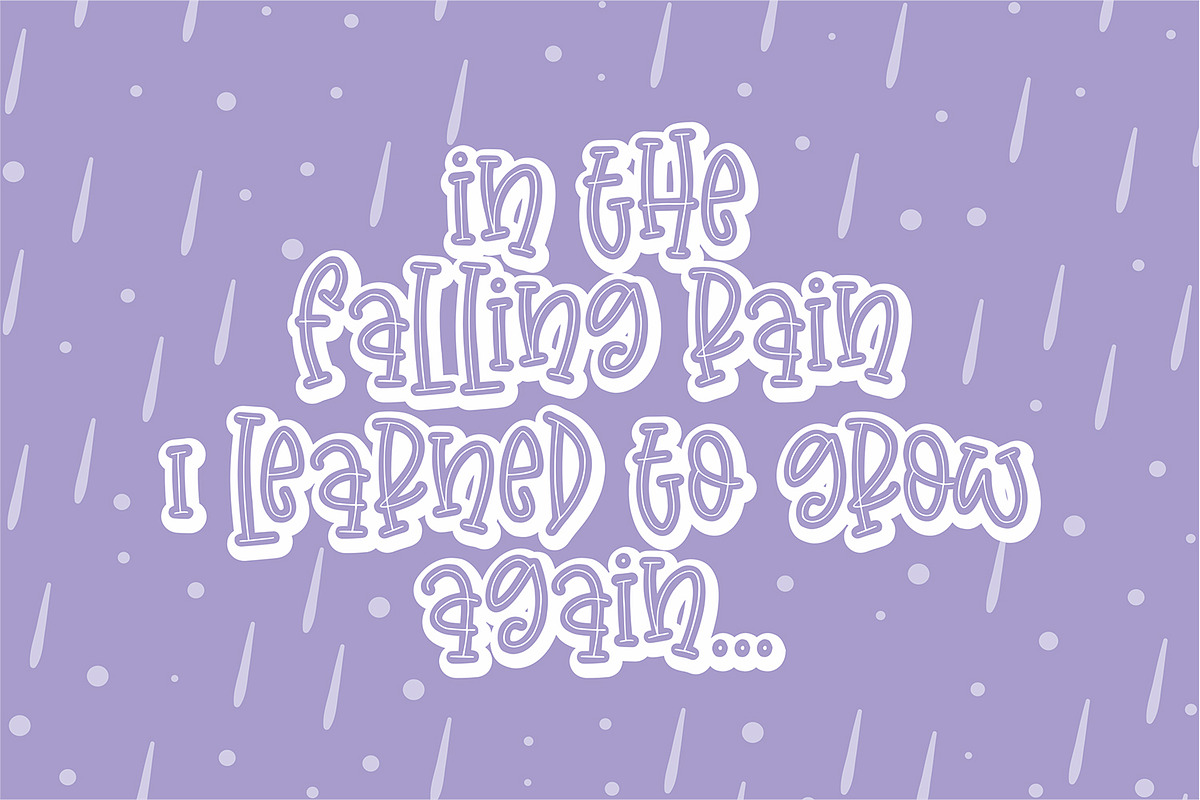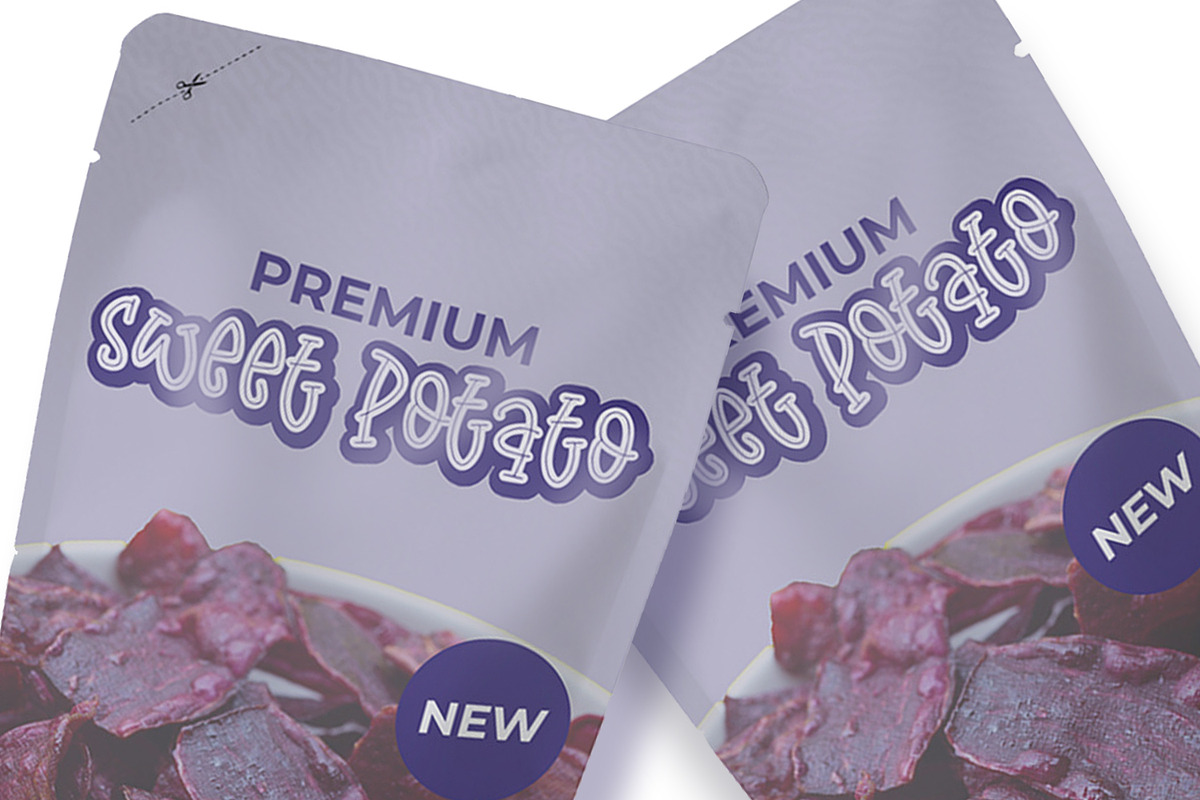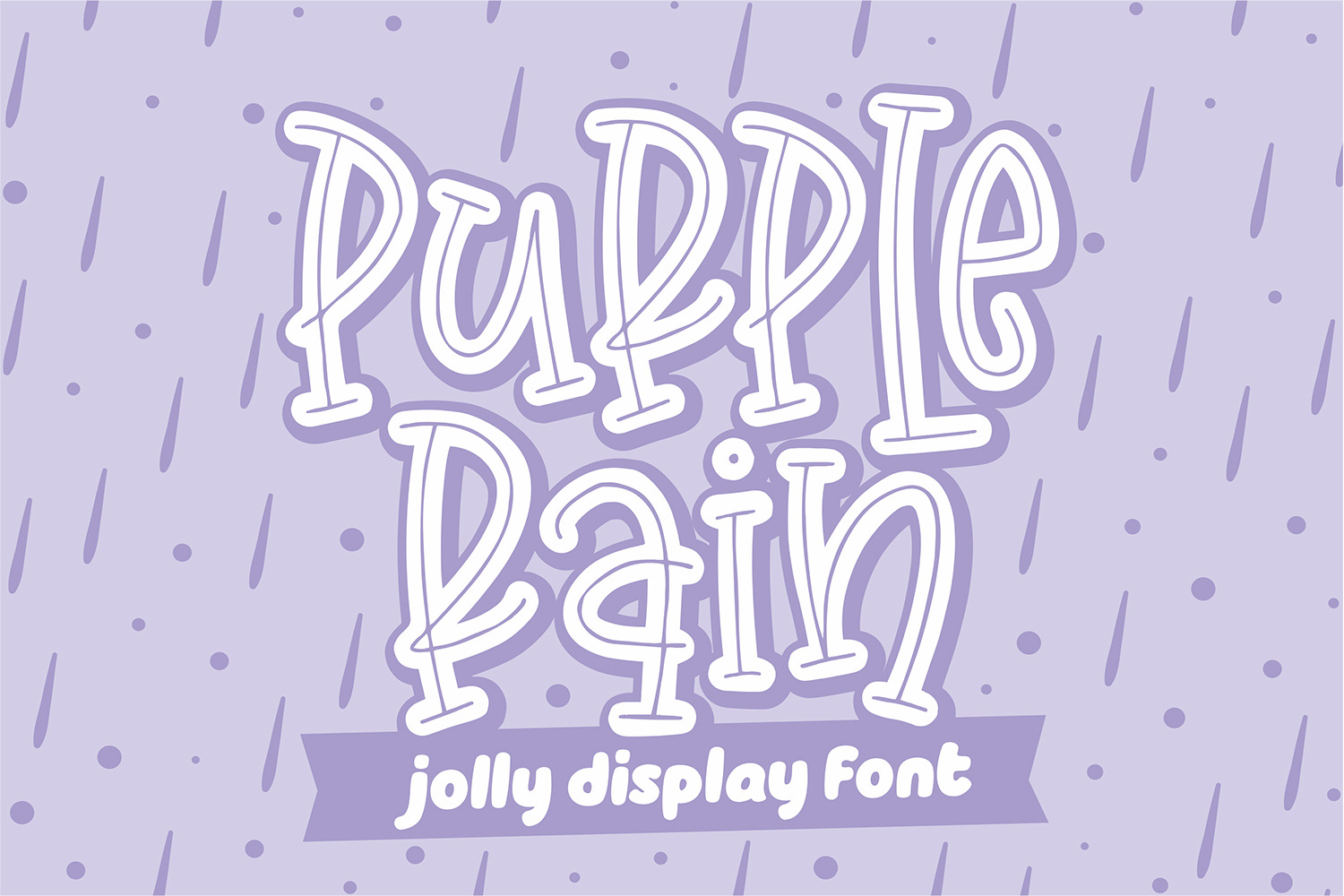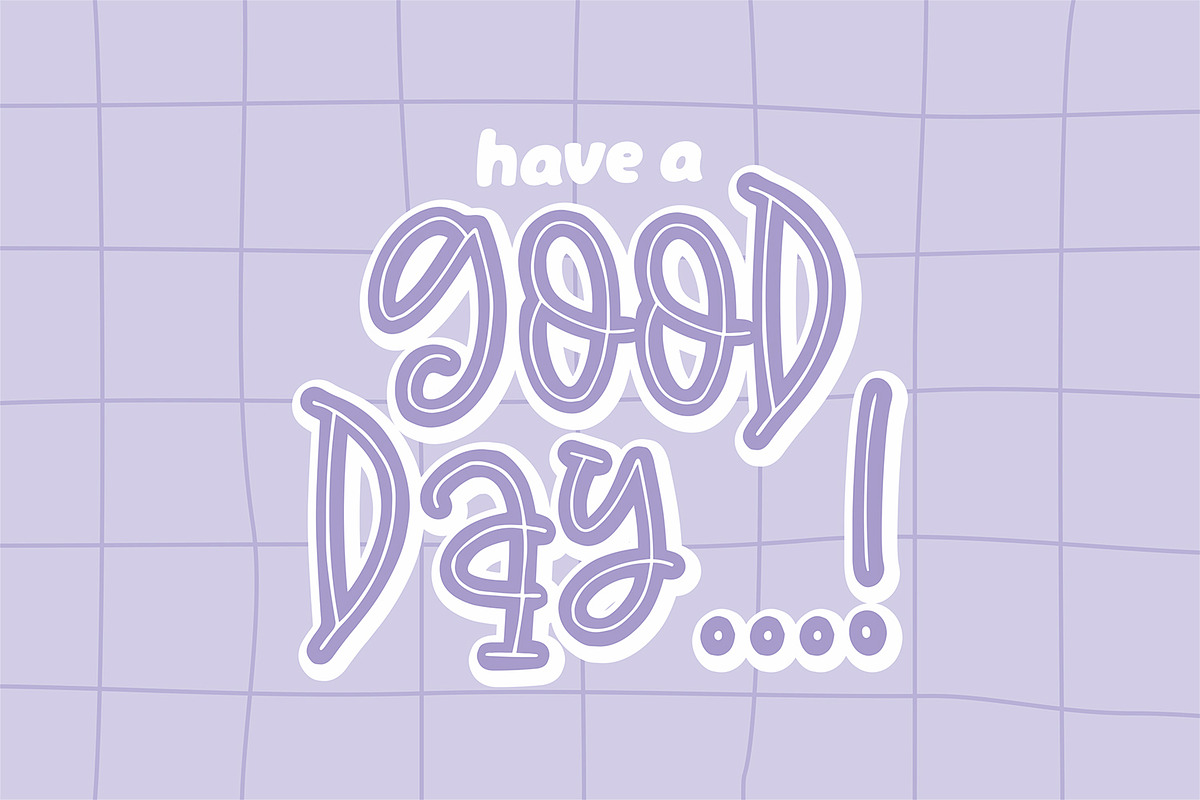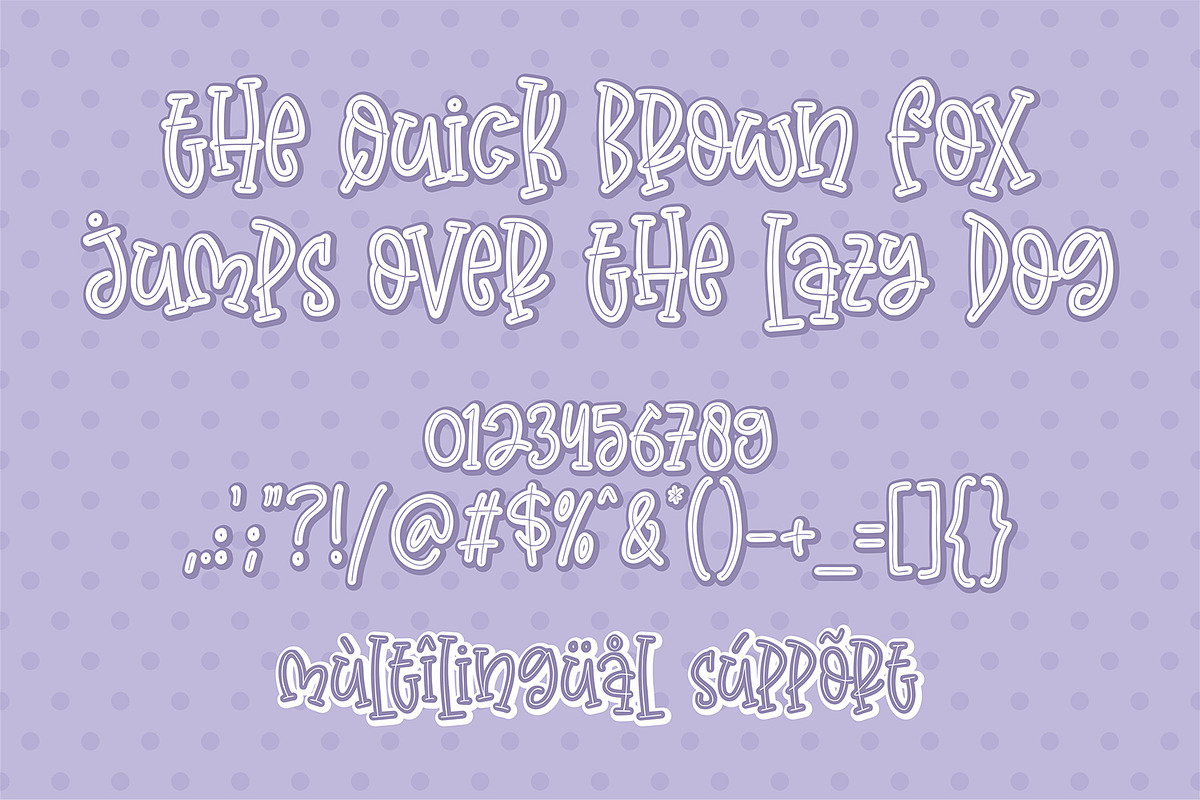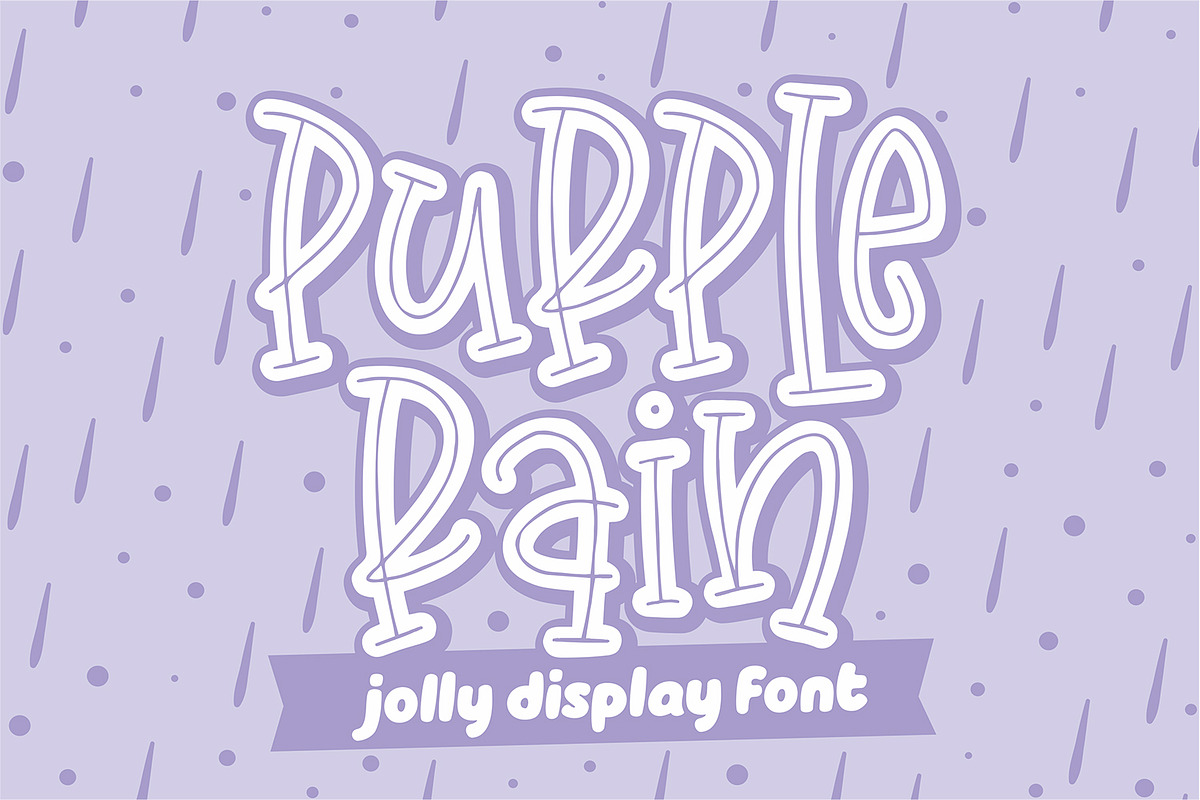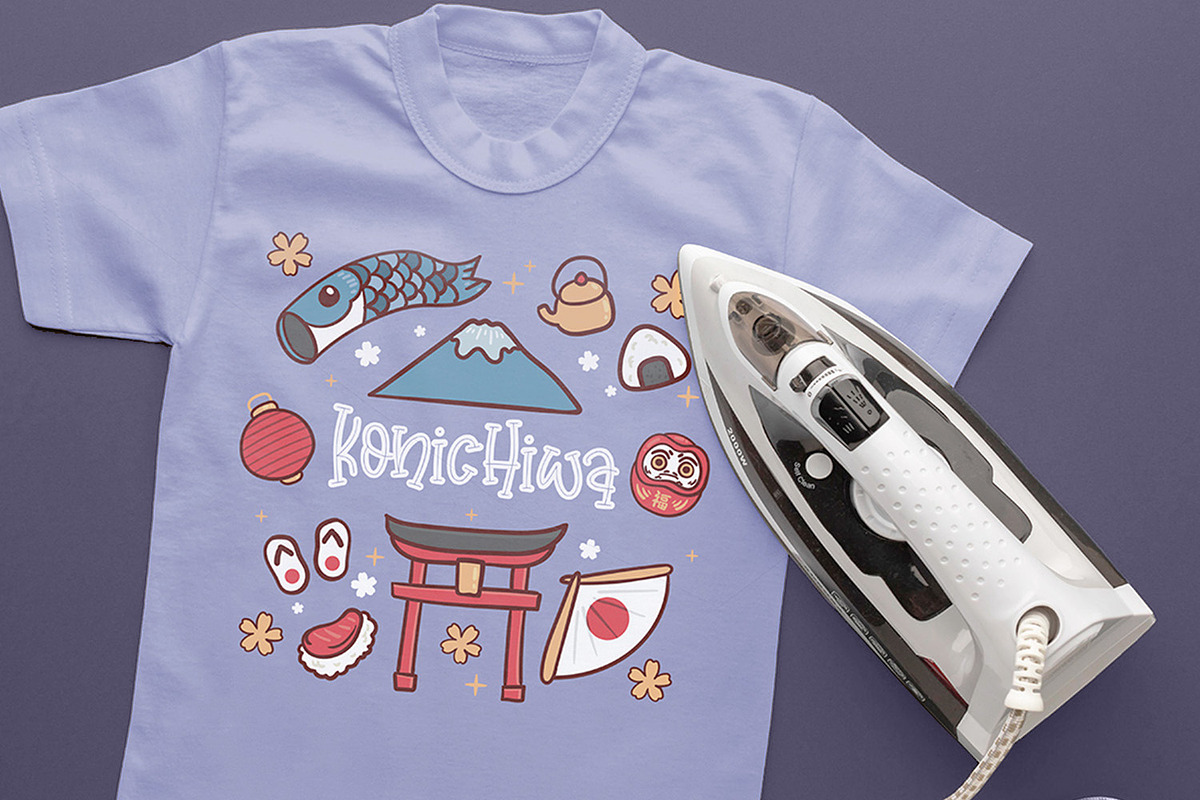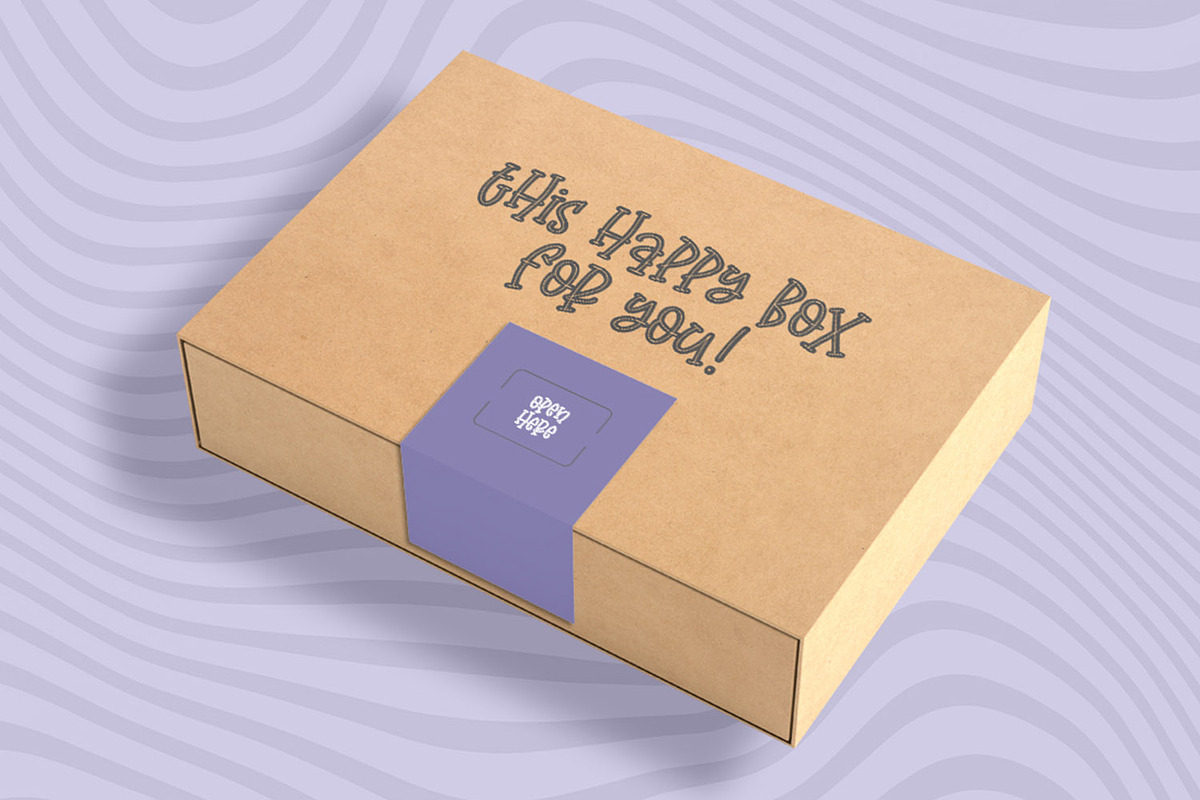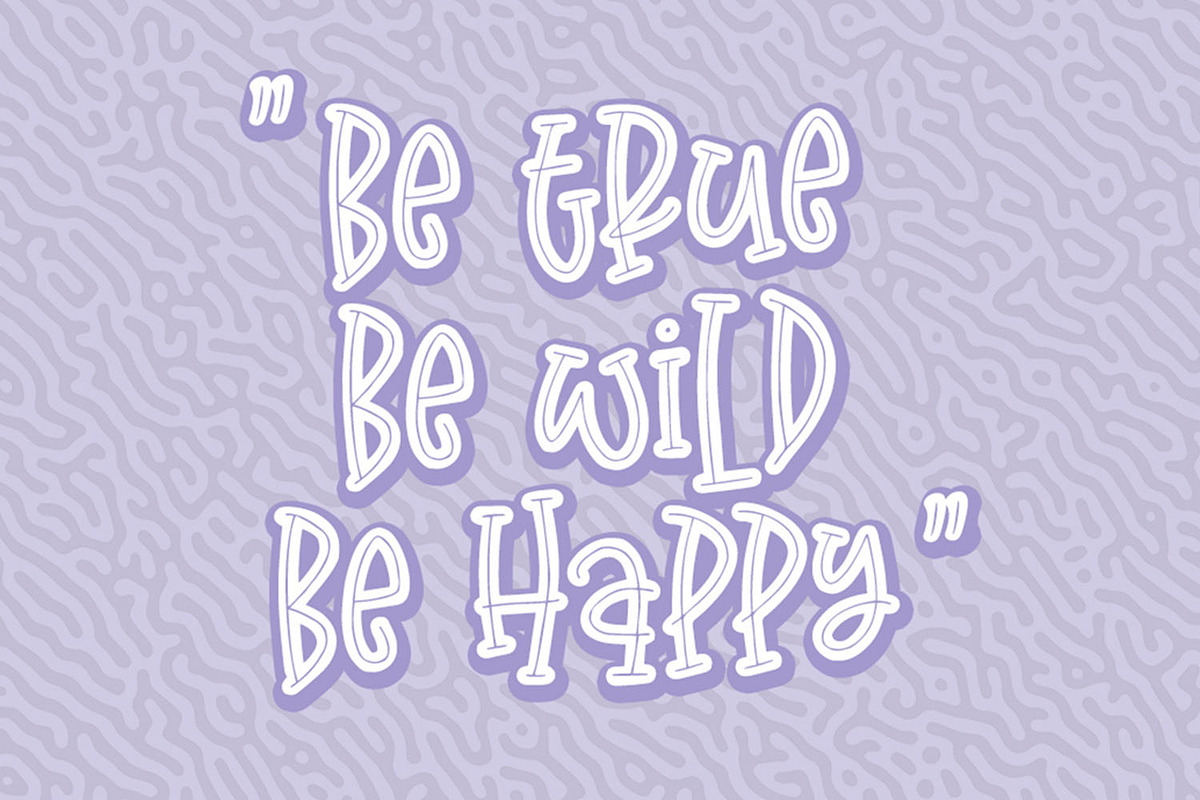
Purple Rain ~ Jolly Display Font
Purple Rain is a jolly display font, that will bring joyful to your projects. This font is made from natural stroke, and has inline stroke, make it looks cute. Also, this font is All-Caps with bouncy style, extra playful.